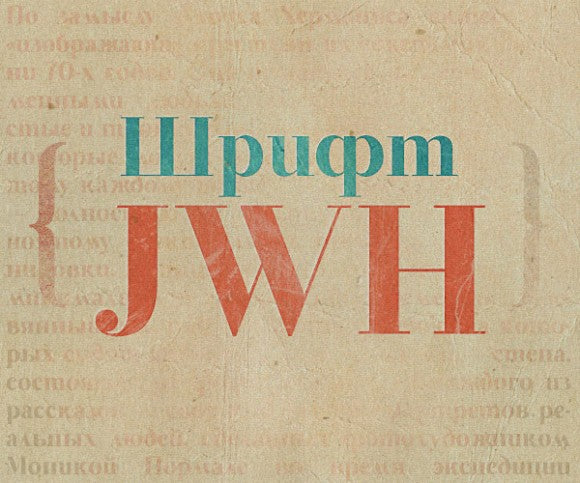
Free JWH font
Introducing you to the absolutely beautiful free jwh font. Freebies Bug has created this amazing and beautiful font. Easily amaze your audience with this fancy font and make your graphic designs pop up from the crowd.